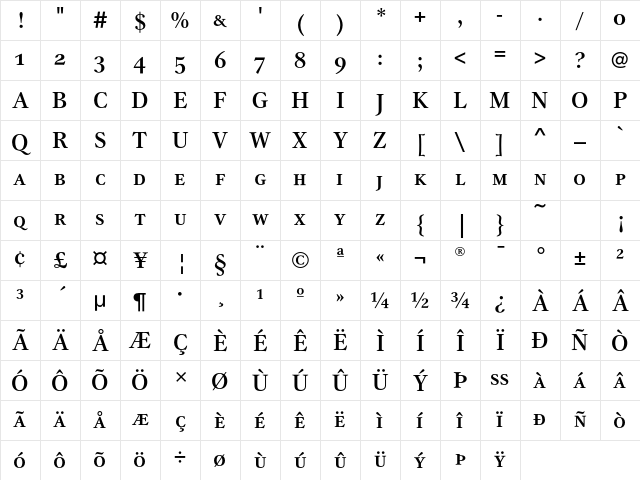
GammaSCEF Medium Free Font
GammaSCEF Medium
GammaSCEF Family
Complete GammaSCEF Medium glyph index. Displaying only characters natively supported by GammaSCEF Medium font.
Design Context for GammaSCEF
GammaSCEF is a composed and adaptable typeface that performs quietly and consistently across a wide range of design contexts.